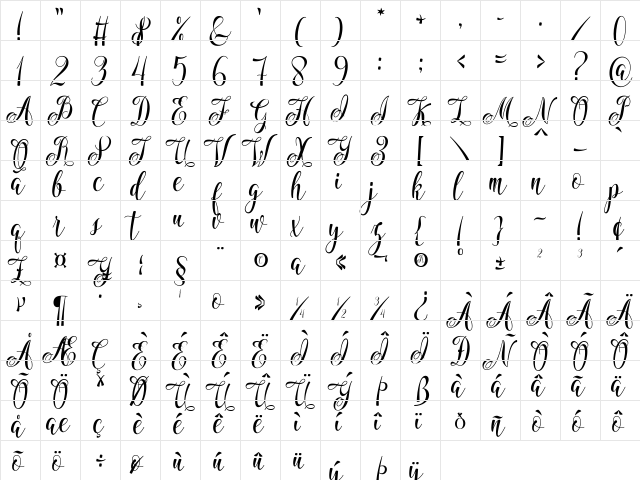
Marshanda Regular
Design Context for Marshanda Typeface
Marshanda brings a calligraphic fluidity to the page — its connecting strokes and expressive curves give it an unmistakably human quality.
Font Pairing: Combine Marshanda with a simple geometric sans for maximum contrast — the tension between flowing curves and clean structure is a classic typographic pairing.
Pro Tip: Pair Marshanda with a clean sans-serif for supporting text. The contrast between fluid script and geometric structure creates an elegant typographic hierarchy.